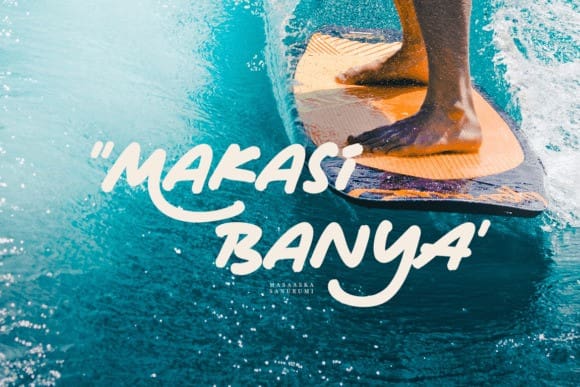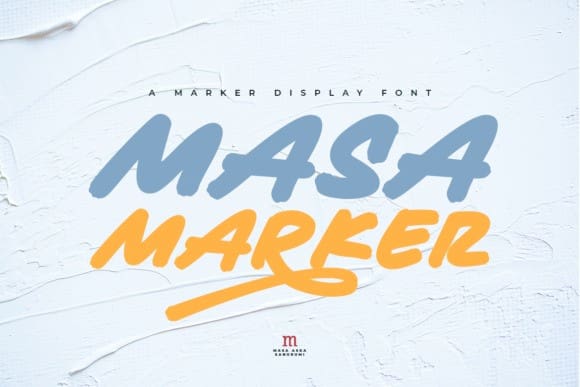
Masa Marker Font
Masa Marker Font is a versatile, stylish, and playful handwritten script font, perfect for a wide spectrum of applications such as greeting cards, headlines, and many more! Add it to any of your creative projects, and it will give them a clean and exquisite feel.